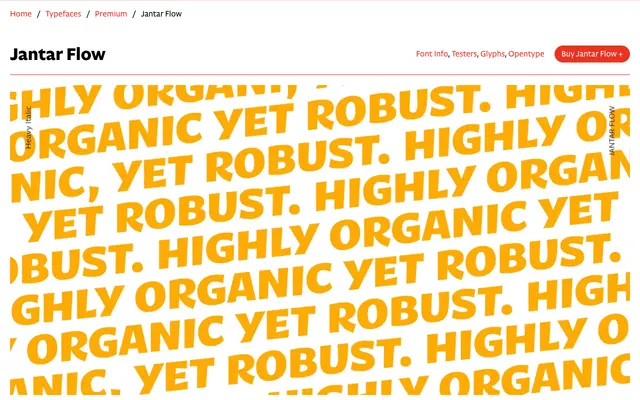
Jantar Flow
CAST · Radek Łukasiewicz · 2019
A humanist sans by Radek Łukasiewicz built for continuous reading across print and screen, with broad European language coverage and a thorough OpenType feature set.
Seven weights from ExtraLight to Heavy, each with a proper italic, give the family range for both body text and display use. A large x-height and low contrast help it hold at small sizes in captions and side notes, while tabular and proportional figures in both lining and oldstyle styles, plus a hybrid figure set, cover most editorial and typographic needs. Extensive diacritics cover all European languages, and case-sensitive characters add polish for all-caps settings.
Described explicitly as a humanist sanserif; low contrast and large x-height are hallmarks of humanist sans design aimed at continuous reading.